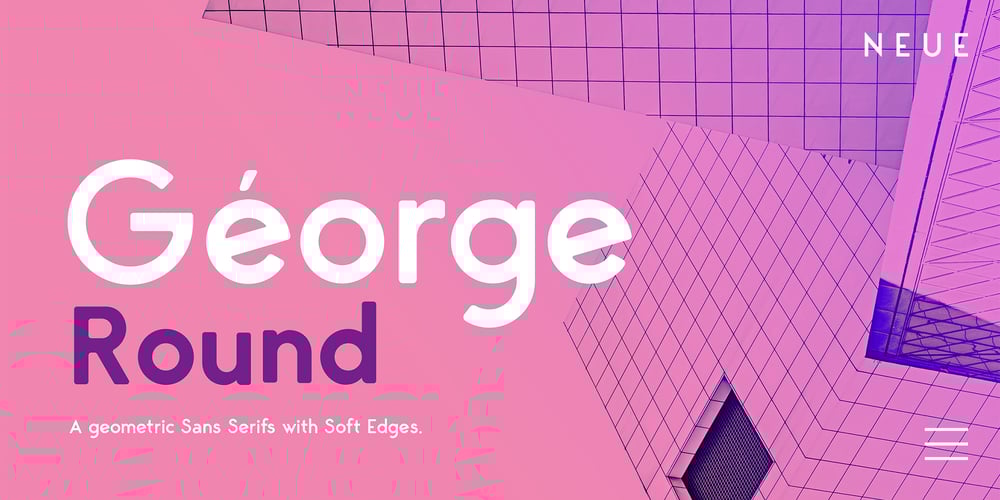
Neue George Rounded Font Family was designed by Kurt Harahap and published by Kaligra.co. Neue George Rounded contains 8 styles and family package options. Neue George Rounded is new geometric contemporary sans serif font family of 8 fonts with Soft edges. Designed with clean and stylized modern European geometry with harmonious appearance for both texts and headlines. Perfect companion for branding, editorial and signage, also works great for bigger applications. This typeface covers all kind of graphic and web design projects.